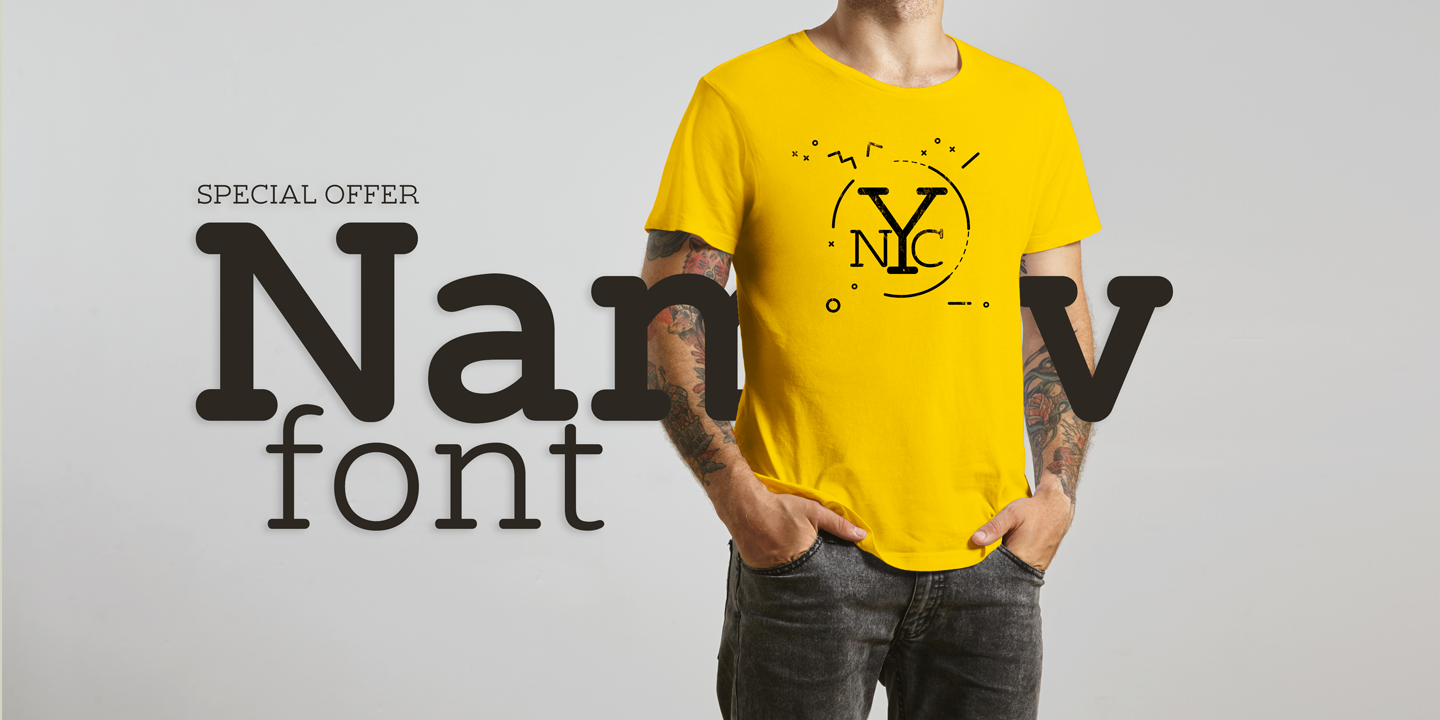
The Namyv Font is perfect for futuristic tech company branding, sci-fi movie titles, cutting-edge software interfaces, innovative product packaging, advanced gaming graphics, next-generation app designs, modern digital art projects, progressive technology presentations, and forward-thinking creative agency materials.
What makes the Namyv Font so exciting is its enigmatic futuristic character that instantly communicates technological innovation and mysterious digital sophistication. This compelling typeface embodies the advanced complexity and forward-thinking vision that defines next-generation technology, creating an immediate impression of innovation and digital evolution. The font's namyv character communicates the cutting-edge excellence and technological sophistication that future-focused businesses need to attract audiences who embrace technological advancement and seek innovative experiences rooted in digital transformation and next-generation thinking.
The Namyv Font family includes Regular weight featuring complete uppercase and lowercase character sets, comprehensive numerical collections, essential punctuation marks, and futuristic symbols that maintain the advanced aesthetic throughout your technology innovation and digital transformation design projects.
Technology companies and innovation-focused organizations consistently select Namyv Font Free Download for projects that require authentic futuristic appeal and advanced technological communication. This exceptional typeface excels in environments where establishing digital credibility and innovation leadership is crucial for attracting tech-savvy customers who value cutting-edge solutions and next-generation technological experiences. The font's namyv character helps communicate the quality and technological excellence that innovation audiences expect from established tech leaders and advanced digital service providers.
The distinctive qualities of Namyv Font reflect the evolving landscape of digital innovation where technological advancement, futuristic thinking, and digital transformation create revolutionary experiences and lasting technological progress. Each character demonstrates the precise engineering and innovative vision that characterizes successful technology businesses and digital innovation enterprises. The font's proportions and spacing create perfect balance between futuristic appeal and functional clarity that modern tech businesses require for effective digital communication and innovation positioning.
Contemporary technology enterprises appreciate how Namyv Font communicates digital authenticity and innovative excellence. Whether designing materials for software development companies, creating branding for digital transformation services, or developing marketing for next-generation technology products, this font delivers the advanced character that distinguishes genuine innovation from conventional technology solutions. The typeface works exceptionally well for businesses emphasizing technological leadership, digital innovation, and the sophisticated appeal of cutting-edge technology and futuristic digital experiences.
The versatility of Namyv Font extends across multiple technology applications and innovation marketing initiatives. Gaming studios utilize its futuristic character for next-generation game interfaces and digital entertainment communications. Tech startups choose it to communicate their commitment to innovative solutions and cutting-edge technological development. Digital agencies rely on its advanced appearance to attract clients seeking progressive technology implementations and futuristic digital strategies.
Digital innovation platforms benefit from Namyv Font's optimized performance across various technological applications and advanced communication channels. The font maintains its namyv character whether displayed on tech websites, mobile innovation apps, or high-resolution futuristic presentations. This technical reliability ensures consistent brand presentation across all technology communication platforms and digital innovation engagement scenarios.
The emotional impact of Namyv Font resonates with audiences who embrace technological evolution and seek innovative experiences that push the boundaries of digital possibility and technological advancement. The typeface serves as a visual gateway to digital innovation and technological sophistication that helps tech businesses build lasting relationships with forward-thinking customers who value cutting-edge solutions and next-generation digital experiences. This connection to technological innovation and digital evolution makes it invaluable for establishing credible future-focused brand identities.
Technology marketing specialists and digital innovation design professionals recognize Namyv Font as an essential tool for authentic futuristic branding. The font captures the essence of technological advancement while making digital innovation accessible to contemporary tech businesses who want to communicate their commitment to cutting-edge solutions, technological excellence, and the mysterious appeal of next-generation digital experiences in today's rapidly evolving technology marketplace.